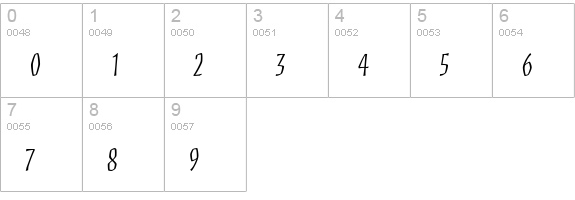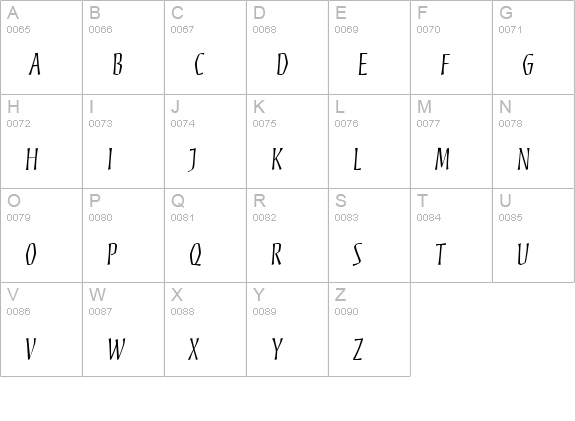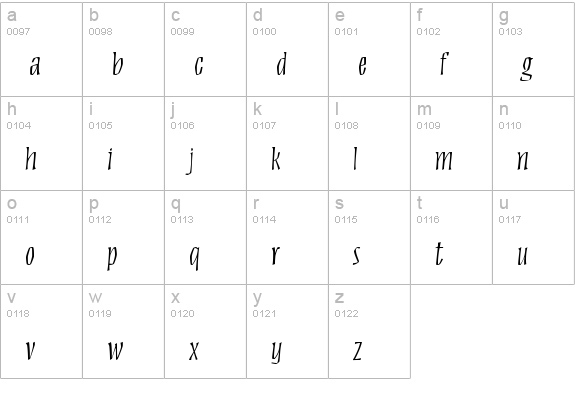
Mezz Std Light is a refined, elegant variant in the Mezz typeface family \xE2\x80\x94 well suited to elegant body text, refined sub-headings, and luxury branding.
Mezz Std Light font is a modern and stylish typeface that exudes elegance and sophistication. Its clean lines and subtle curves make it a versatile choice for a wide range of design projects. This font is perfect for creating a sleek and contemporary look in branding, advertising, editorial design, and more. What sets Mezz Std Light font apart is not only its aesthetic appeal but also its accessibility - it is available for free download at FontsMarket.com. Whether you are a professional designer looking for a high-quality font to enhance your work or a hobbyist seeking to elevate your creative projects, Mezz Std Light font is an excellent choice that won't break the bank. Download this font today and add a touch of refinement to your designs!